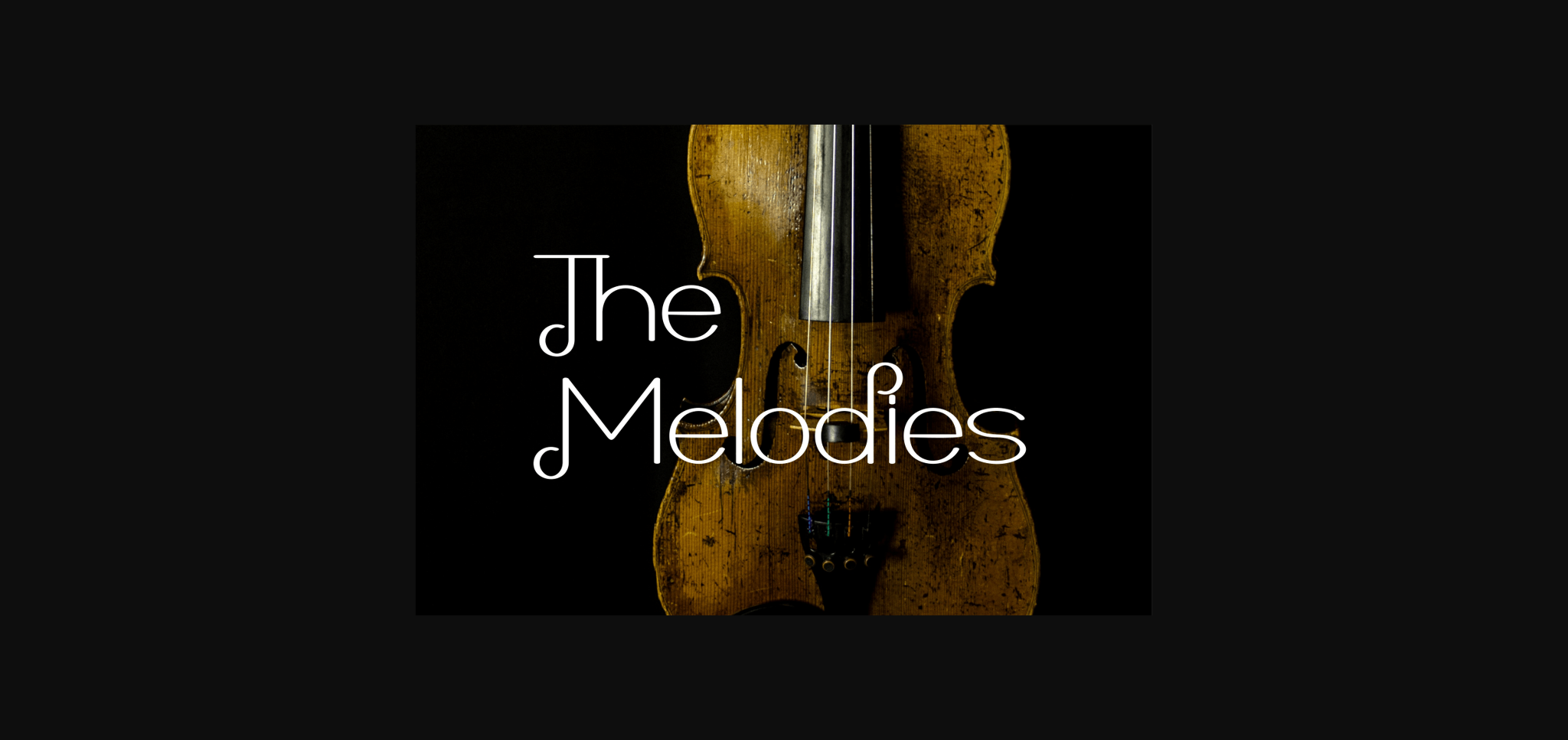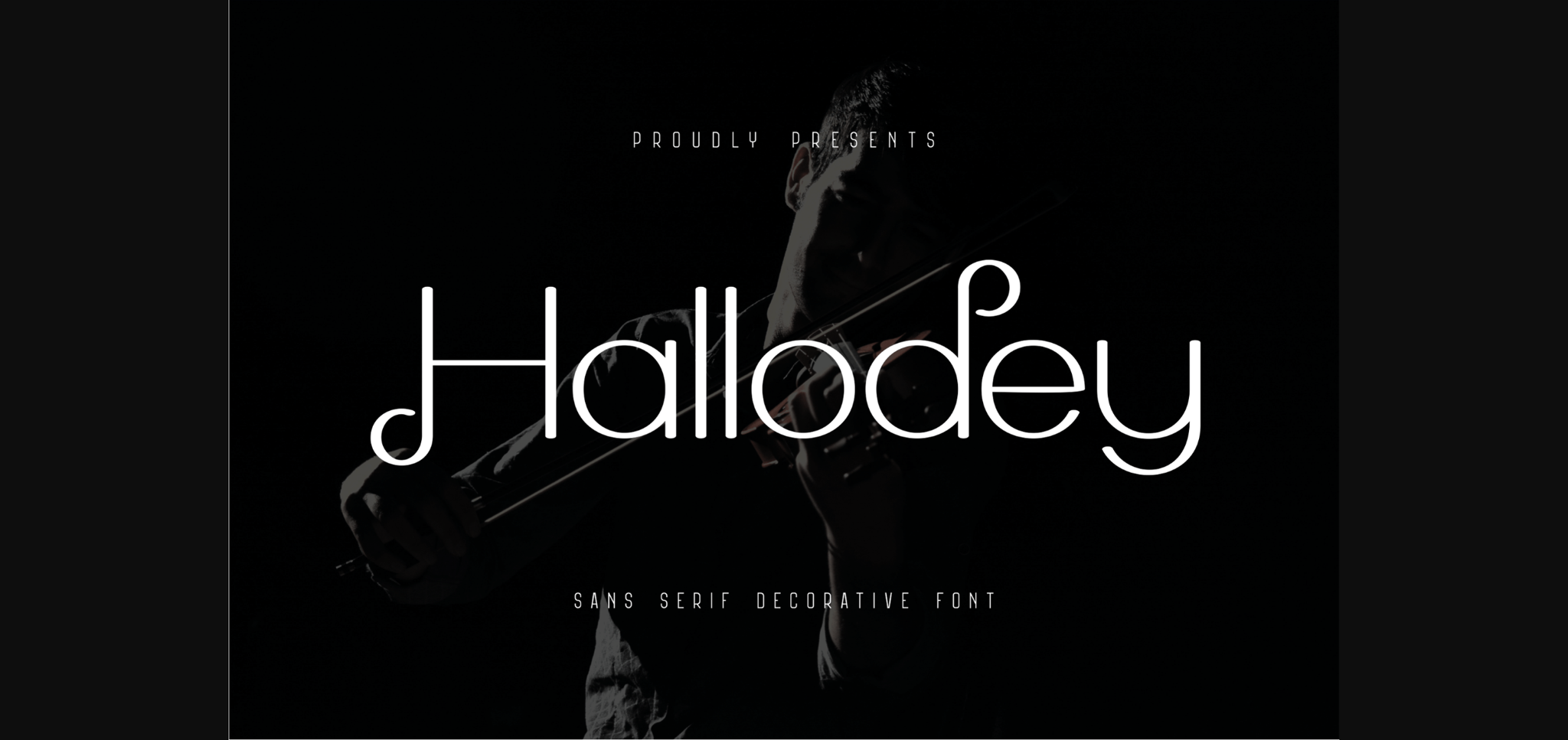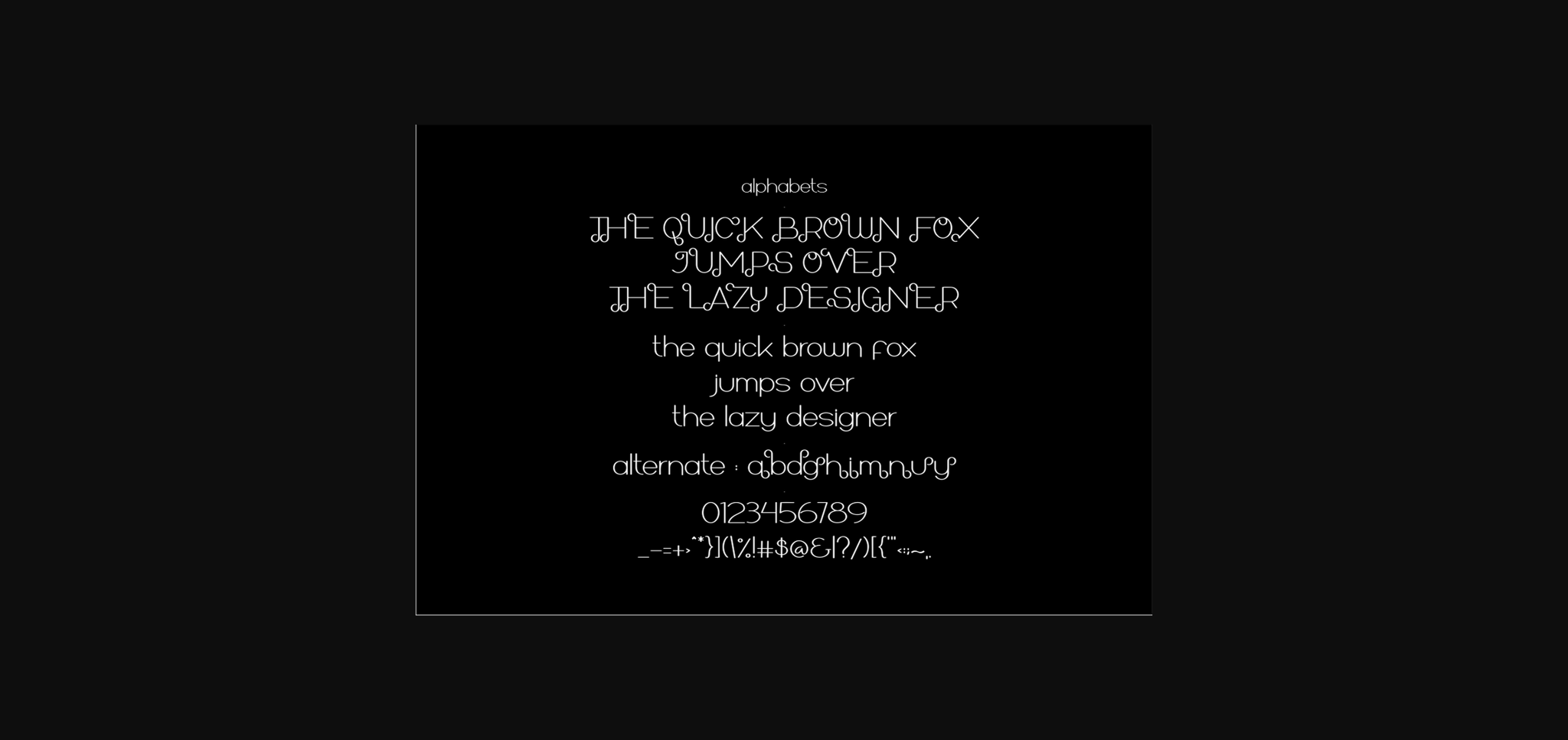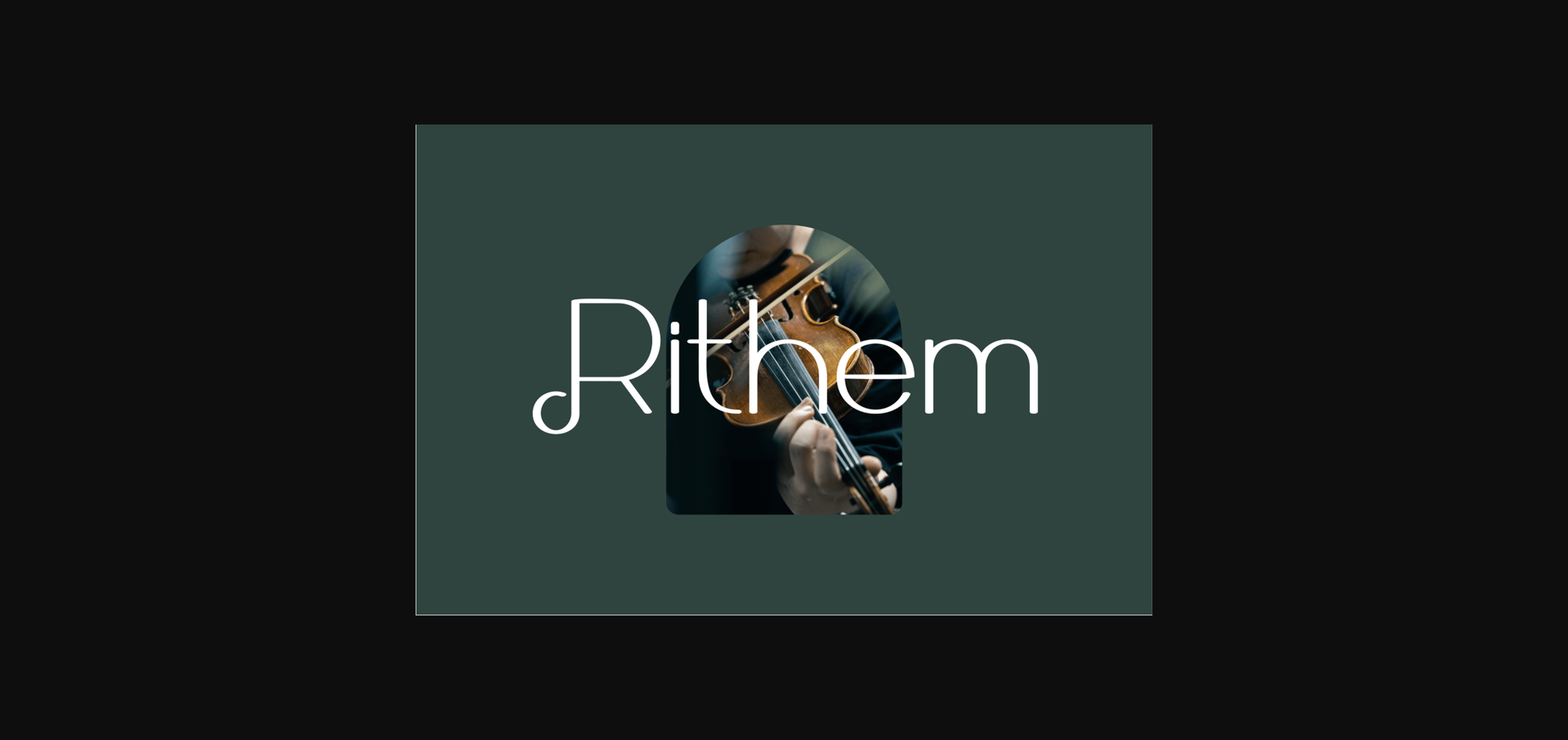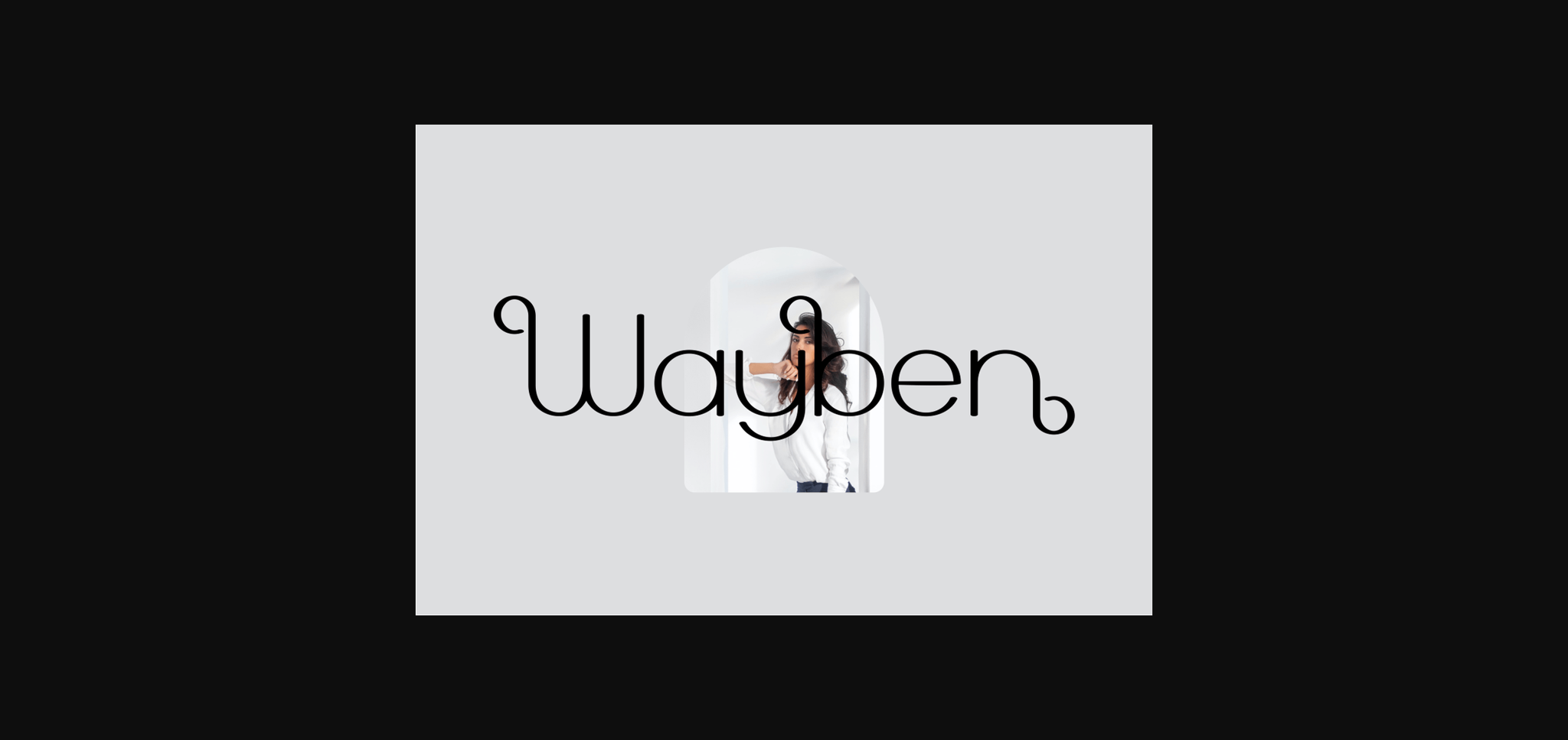
Hallodey Font
About Hallodey Font
Hallodey is an elegant, classy, and modern sans serif font. It’s a great font for fashion, apparel projects, signatures, album covers, logos, branding, magazines, social media, and advertisements, but also works great for other projects.